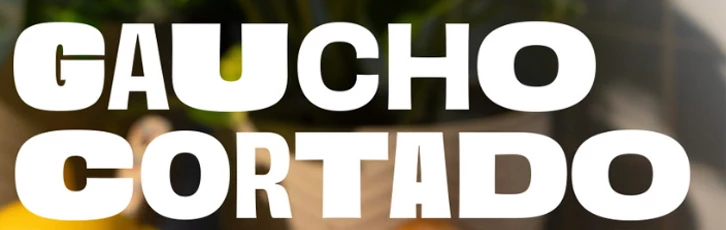
Sorry for the late response. Just in case you haven’t identified the typeface already, it’s Obviously from the OH no Type Company. There are static and variable versions of the type family. https://fonts.adobe.com/fonts/obviously-variable
That's Gotham Rounded Bold (or very close to it). The rounded terminals and even stroke weight are a dead giveaway. If it's not an exact match, try WhatTheFont for a quick verification, but I'd bet on Gotham Rounded.